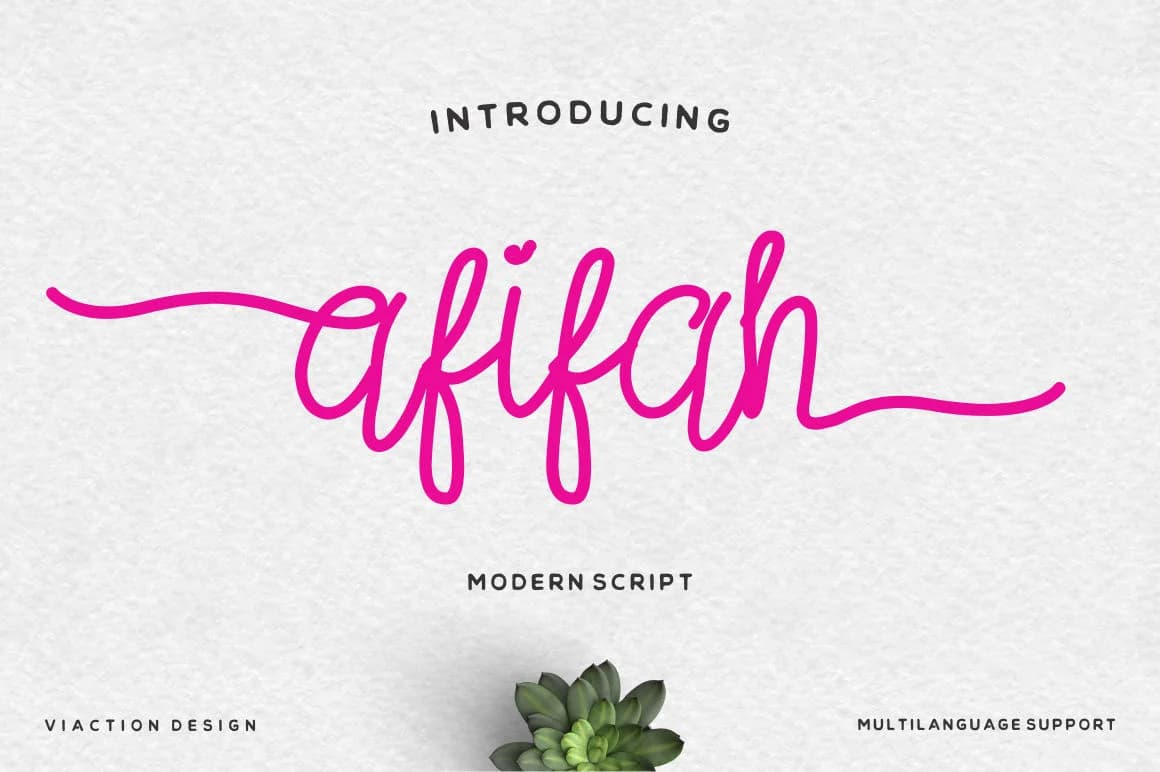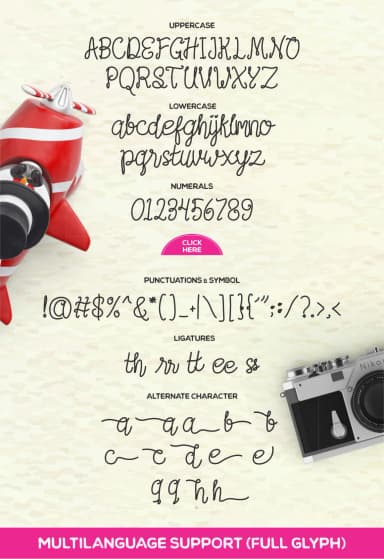
1 / 7About Afifah Script Font
Afifah Script by Viaction Type.Co is a rounded handwritten font that successfully bridges contemporary design sensibilities with timeless romantic appeal. Built with consistent, even stroke weights and softened edges throughout, the typeface delivers a genuinely friendly aesthetic without sacrificing sophistication. Each letterform flows naturally, creating a voice that feels both casual and refined, ideal for projects where authenticity and warmth make all the difference in connecting with your audience. This versatile script shines in intimate, personal applications where genuine personality matters most. Consider it for custom wedding invitation suites that need warmth and personality, artisanal product labels for boutique skincare or handmade goods, hand-lettered greeting cards that stand out in recipients' mailboxes, and vintage-inspired event signage that commands attention. The consistent line weight ensures readable letterforms whether the font is scaled up for large format printing or reduced for delicate packaging labels, while the rounded forms maintain their inherent charm and warmth regardless of size. Whether you're crafting personalized stationery, designing a brand identity that celebrates approachability, or lettering special occasion materials, Afifah Script provides the distinctive character your work deserves. Get this beautiful typeface on Creative Fabrica and transform your creative projects with its timeless charm and modern sensibility.
- Elegant, Flowing, Afifah Script
Afifah Script Font is a script font that shines as a display or heading face. Pair it with a clean sans-serif or serif font for body text — the contrast creates a clear hierarchy while the two styles stay balanced and easy to read.